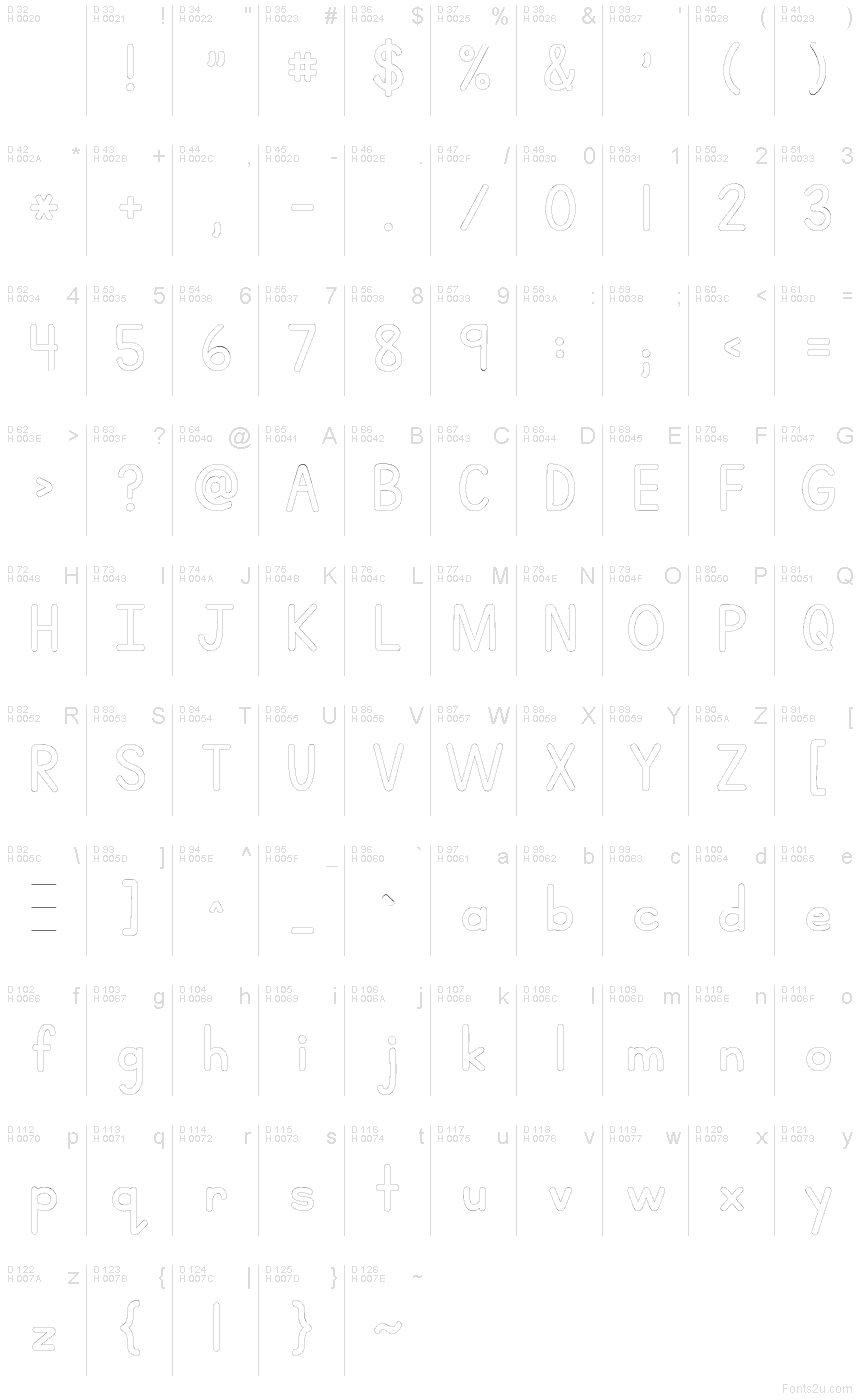
KG Teacher Created Outline
KG Teacher Created Outline font by Kimberly Geswein is a free outlined school script typeface. Part of the friendly KG Teacher Created family, its hollow, rounded strokes and even rhythm make letters easy to trace, color, and read at a glance. The spacing feels generous and calm, like neat handwriting on wide-ruled paper—great when you want clarity without losing warmth.
Using KG Teacher Created Outline, you can create classroom worksheets, bulletin boards, coloring pages, flashcards, labels, and back‑to‑school flyers that invite interaction. The airy forms hold fill color beautifully and stay legible at large sizes. Pair this free font with a simple solid sans from the KG Teacher Created family to add headings that guide young readers.